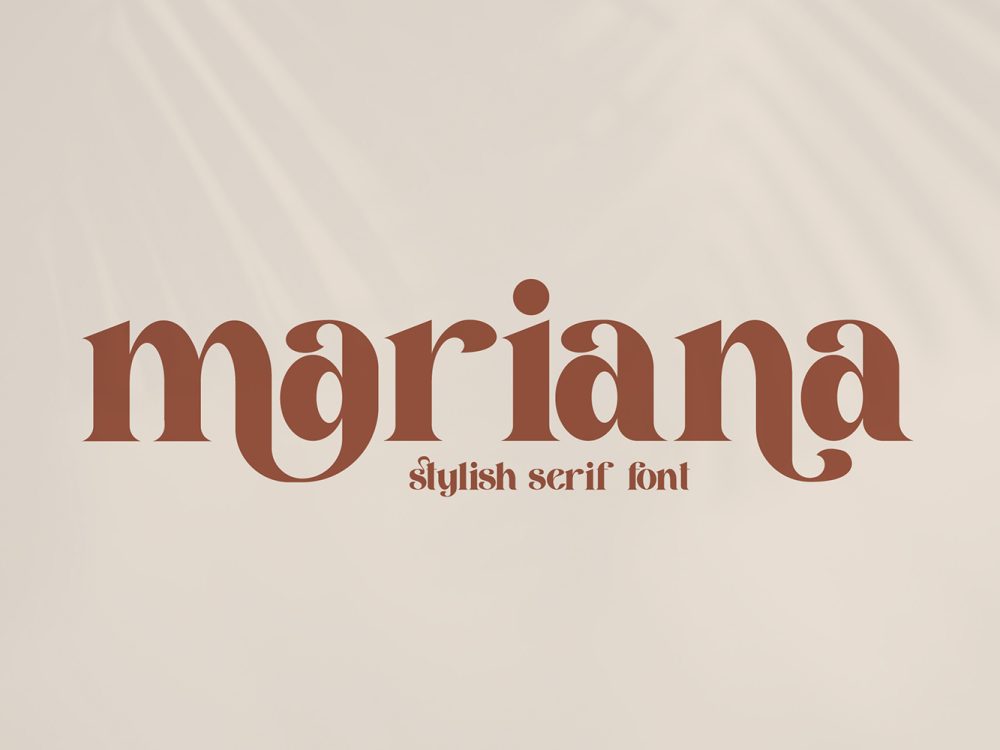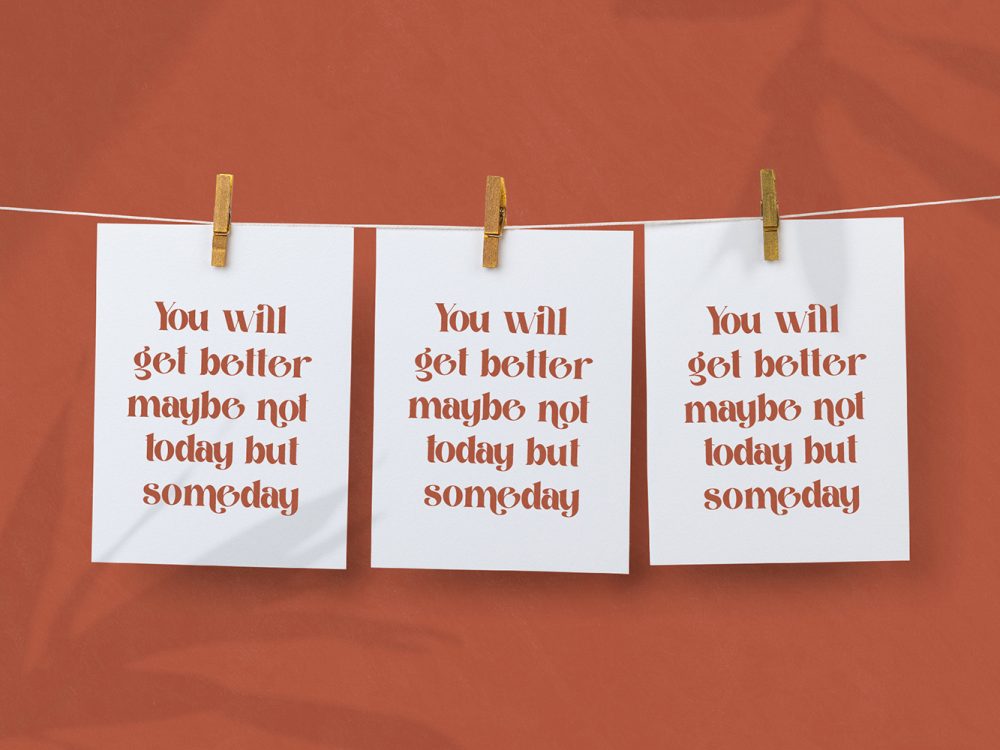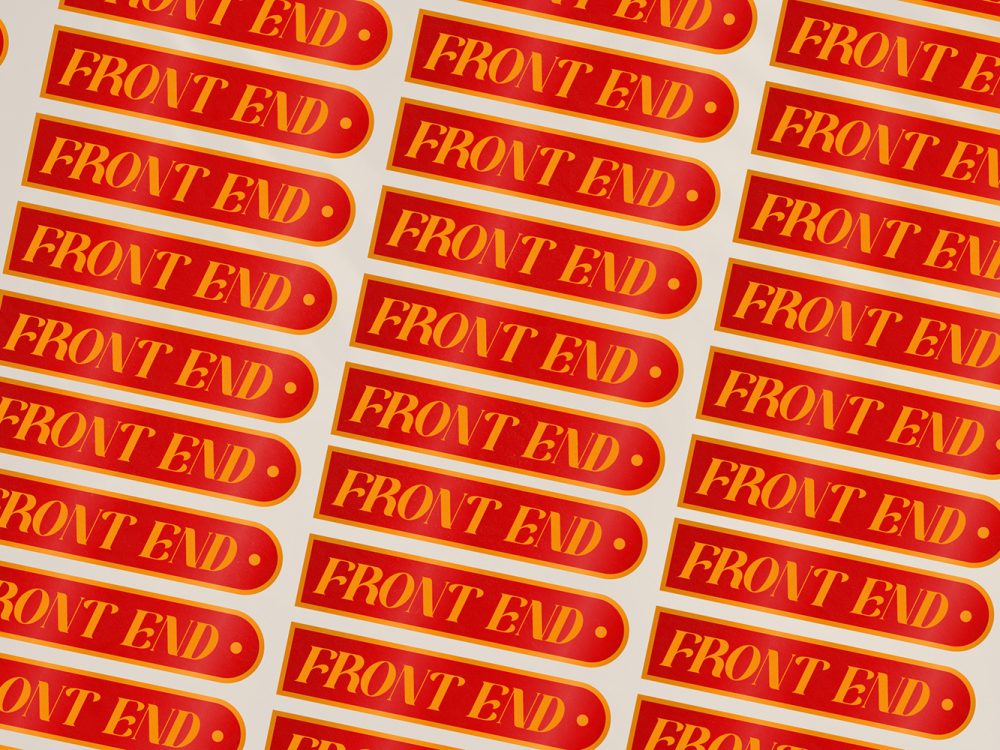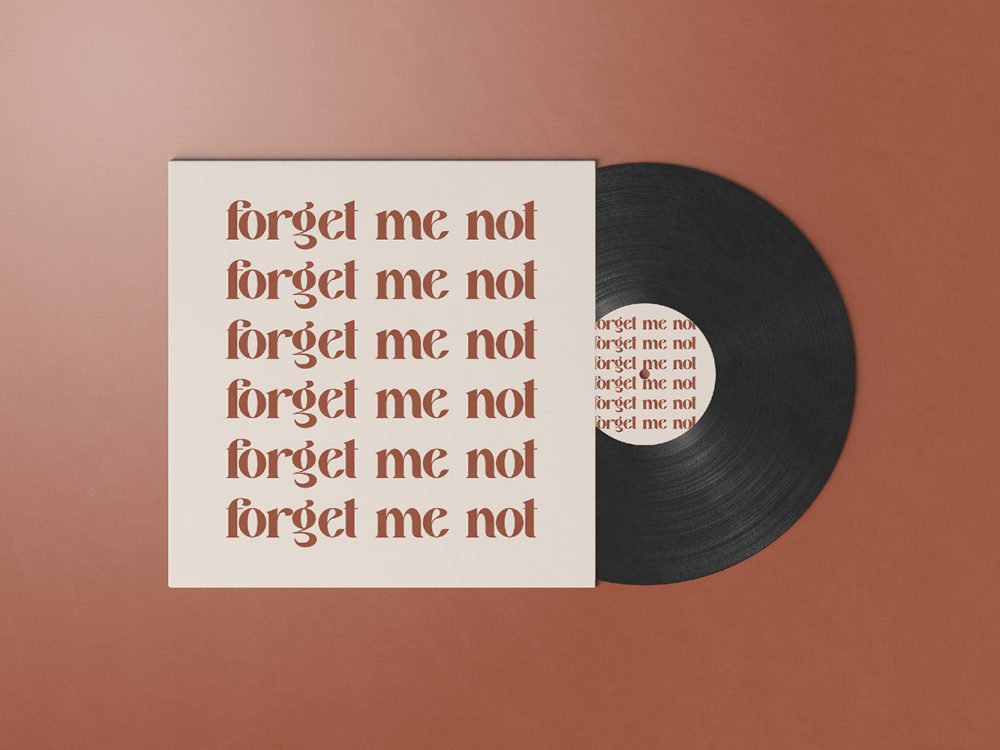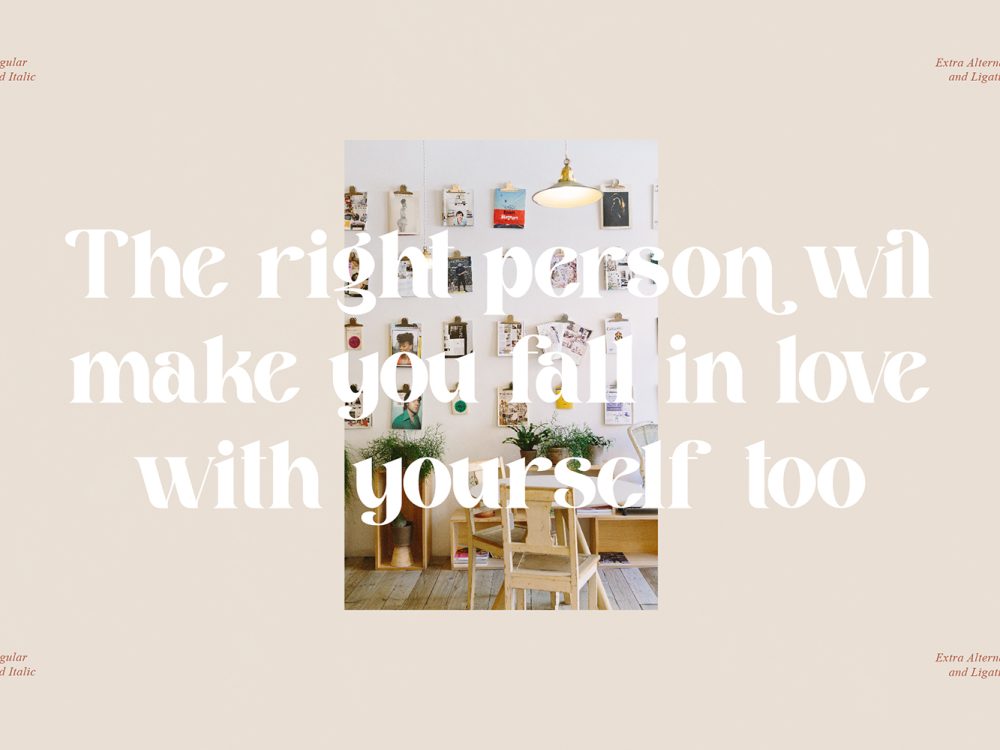
Mariana Free Font is an elegant and timeless serif font distinguished by its contemporary yet classic design and exquisite characters. This versatile typeface is well-suited for creating sophisticated and luxurious logos, designing titles for books or movies, establishing a high-end fashion brand, enhancing magazine layouts, refining clothing designs, crafting beautiful lettering, and elevating the impact of meaningful quotes, among many other applications. If you like it don’t forget to check out the full version.